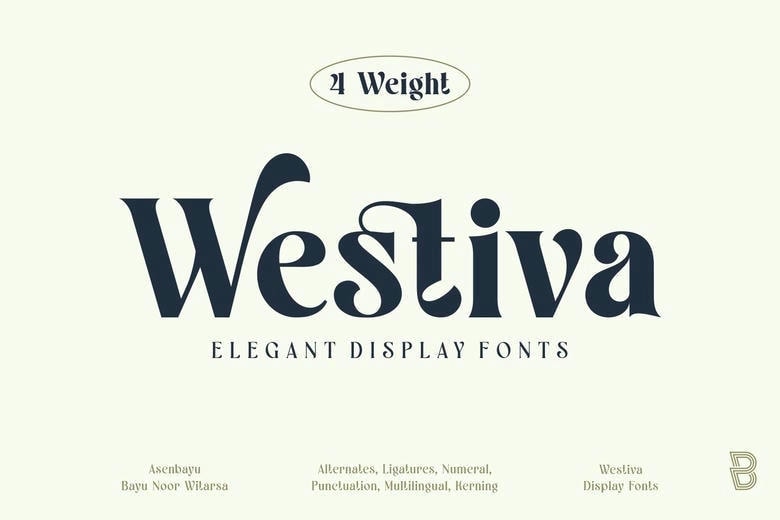
Westiva Font
Westiva is a very stylish and tastefully designed font that belongs to the serif category. The beauty of the curves as well as the stylish looks of this font make it possible to make nice and stylish designs.
Westiva Serif Font